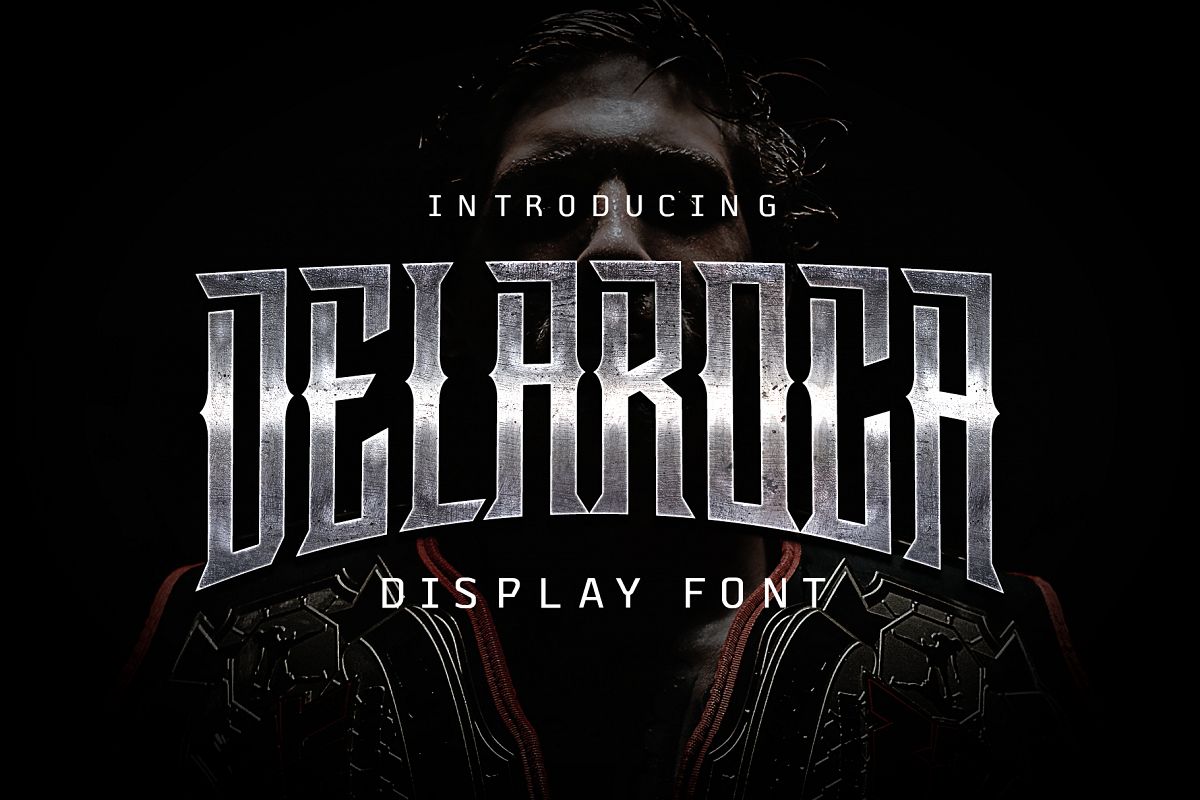
Delaroca
Delaroca is a headline font, designed with high precision of the letters. This font has consistent strokes that give geometric looks. Delaroca is inspired by the gothic era and hardcore culture that perfect for poster, flyer, merchandise, classic editorial, and craft.
This font also has good legibility that you can use as a body text or tagline. You can combine the layout using this font as the background touch, extend the letter space or make a text warp.